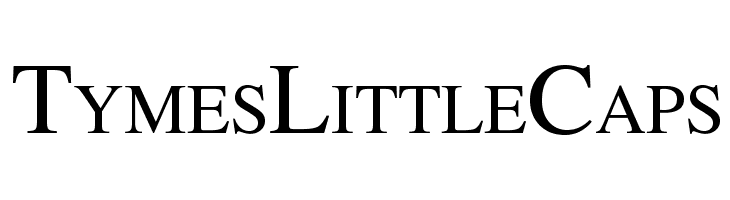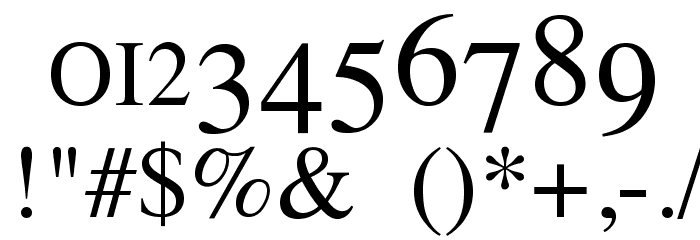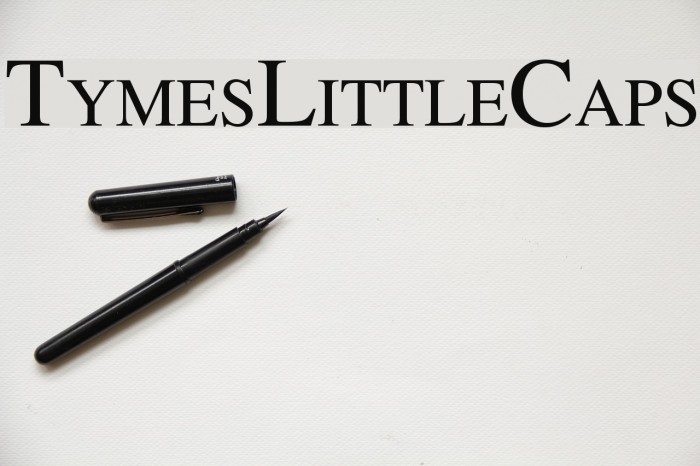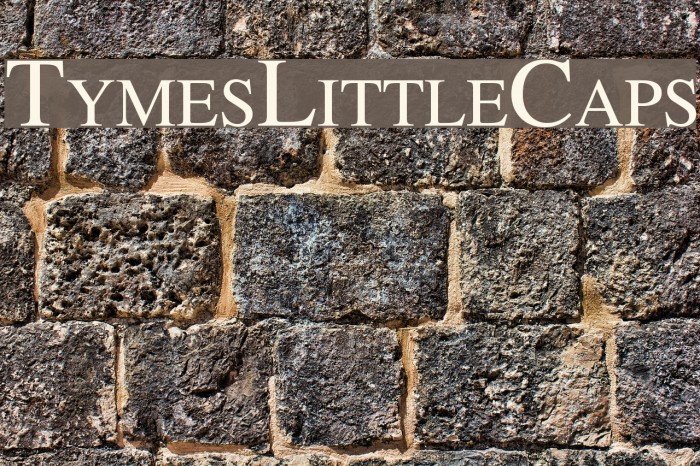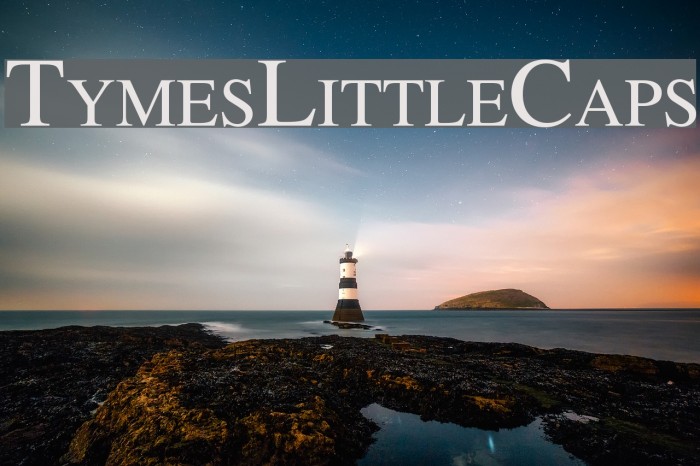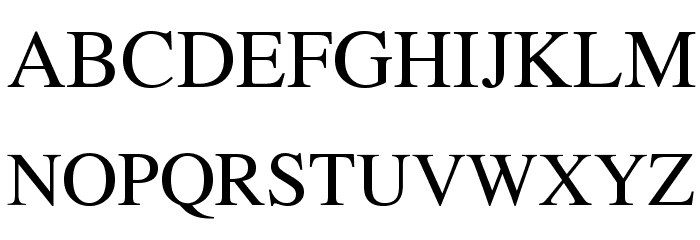
TymesLittleCaps Font
TymesLittleCaps Description
This font exhibits a classic serif style with elegant and refined strokes. The uppercase letters are bold and prominent, featuring traditional serif elements that add a touch of sophistication. The lowercase letters maintain a consistent style, offering a harmonious balance between the characters. The numerals are clear and easily distinguishable, with a slight curvature that enhances readability. Special characters are well-defined, maintaining the overall aesthetic of the font. This typeface is versatile, suitable for both formal and creative projects, providing a timeless appeal.
A classic serif font with elegant strokes and refined character design from Uncategorized fonts.
- Proposed Projects: Ideal for book covers, formal invitations, branding, and editorial design.
- Overall Style: Classic